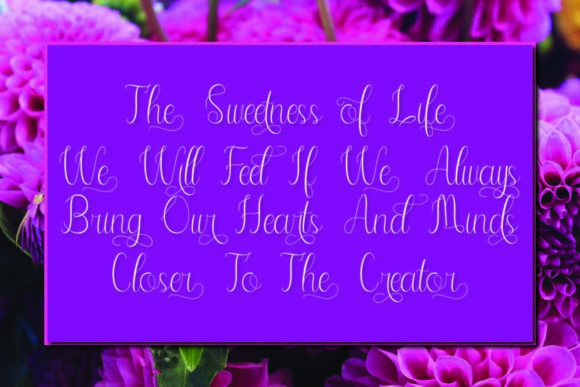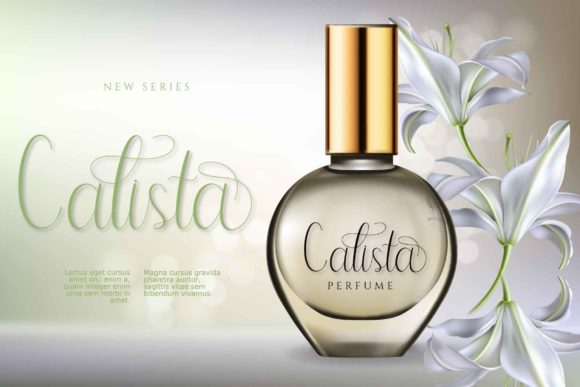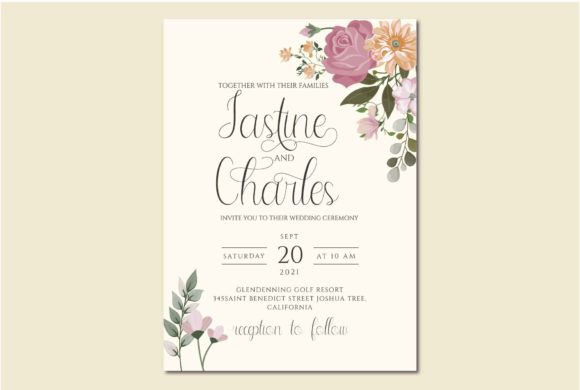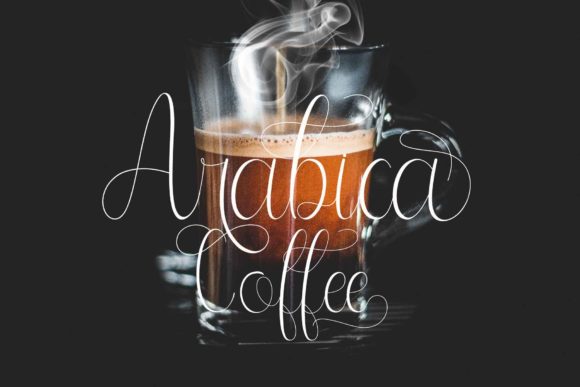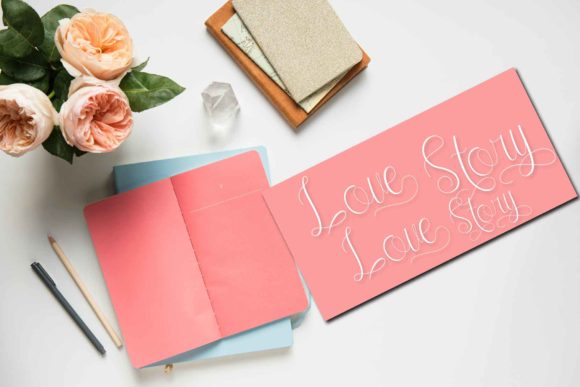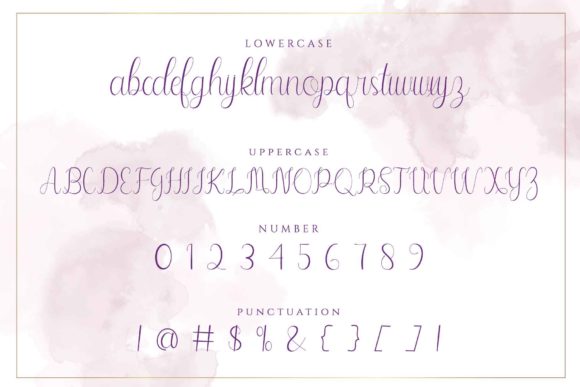
Introduction to Nabilla Kalya Font
Nabilla Kalya is an exquisite handwritten font, masterfully designed to become a true favorite.
Key Features of Nabilla Kalya Font
Why Choose Nabilla Kalya Font?
Nabilla Kalya Font offers exceptional quality and versatility, making it a valuable addition to your design toolkit. Whether you’re creating for personal projects or commercial use, Nabilla Kalya Font delivers professional results.